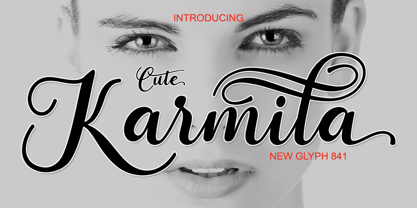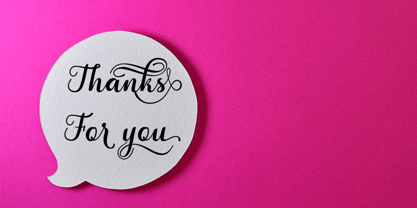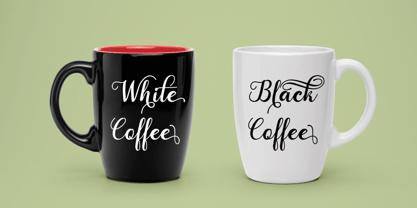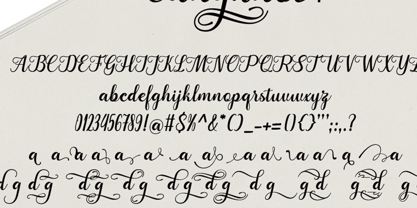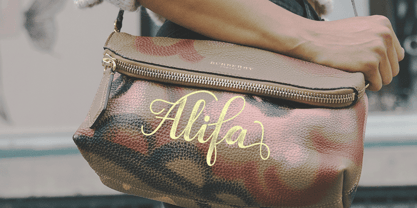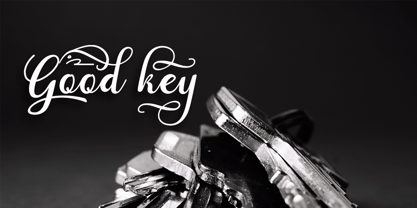
Cute Karmila
by BBA Key
The Cute Karmila Font Family was designed by Marwah and published by BBA Key. Cute Karmila contains 1 styles. More about this family
Cute Karmila Script New fresh & modern style with handmade calligraphy, decorative characters and dancing lineage! So wonderful are invitations like greeting cards, branding material, business cards, quotes, posters, and more !! Cute Karmila Script The comes with 841 glyphs. Alternate characters are divided into several Open Type features such as Swash, Stylistic Sets, Stylistic Alternate, Contextual Alternate. Open Type features are accessible by using Open Type savvy programs such as Adobe Illustrator, Adobe InDesign, Adobe Photoshop Corel Draw X versions, and Microsoft Word. And this font has code PUA unicode (font with special code). So that all alternative characters can be easily accessed by craftsmen or designers. Uppercase & lowercase International signature & symbol Punctuation Support & PUA number Unicode Style Style Alternative Style Style Range 1-29 Contextual Character Variations. If you do not have programs that support OpenType features like Adobe Illustrator and CorelDraw X Versions, you can access all alternative flying machines using Font Book (Mac) or Character Map (Windows).